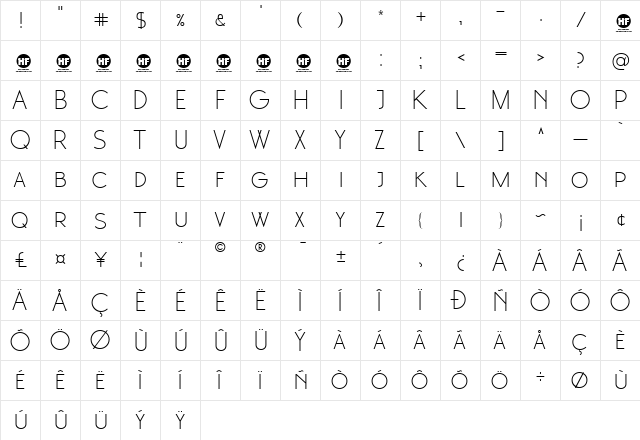
Moonglade DEMO Light
| Foundry | Guilhem Greco / Herofonts |
| Designer | Guilhem Greco |
Design Context for Moonglade DEMO Typeface
Moonglade DEMO offers clean, dependable letterforms without strong stylistic allegiance, making it a practical choice for designers who need flexibility. The delicate stroke weight brings airiness and refinement to layouts.